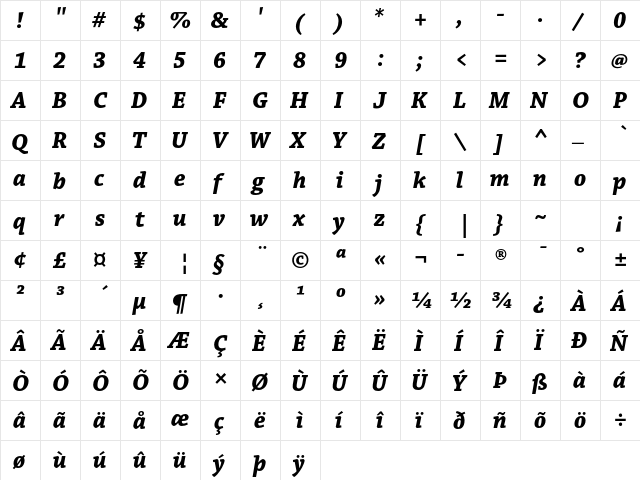
Chaparral Pro Bold Italic Caption
| Designer | Carol Twombly |
Design Context for Chaparral Pro Typeface
Chaparral Pro is a composed and adaptable typeface that performs quietly and consistently across a wide range of design contexts. The slanted form adds forward momentum and visual energy. The heavy weight commands attention and anchors typographic hierarchies.